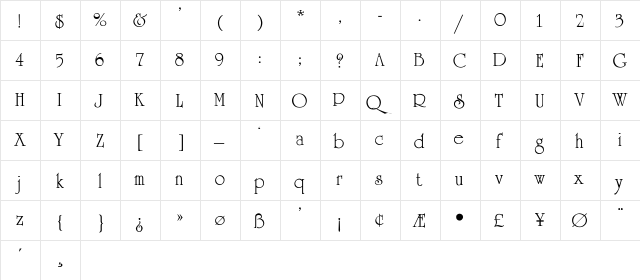
University-Thin Regular
Design Context for University-Thin Typeface
University-Thin is a composed and adaptable typeface that performs quietly and consistently across a wide range of design contexts. The delicate stroke weight brings airiness and refinement to layouts.